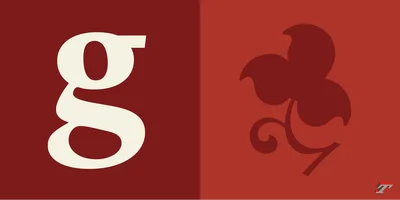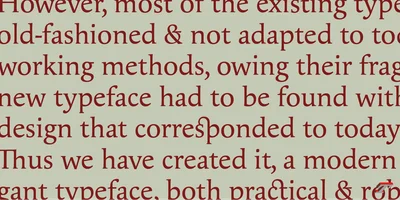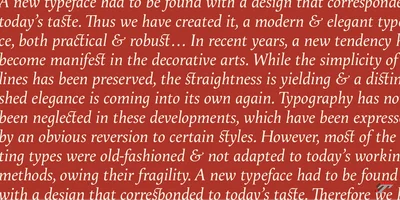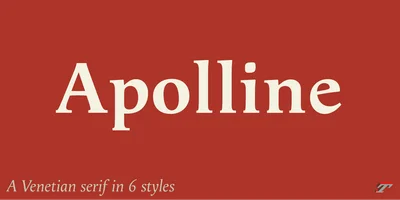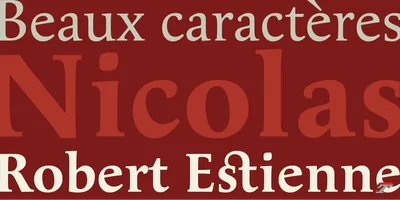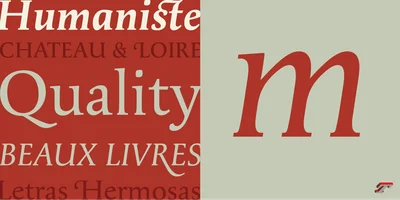
About Apolline
- Foundry
- Typofonderie
- Classification
- serif
- Style
- old-style
Apolline is a Venetian old-style serif typeface designed by Jean François Porchez for Typofonderie. First drawn in 1993, it was among the foundry's three inaugural typefaces when Typofonderie launched in 1994, alongside Angie Sans and Anisette.
History and Design
Porchez modeled Apolline's initial drawings after his own calligraphy, working at very small size — 2 cm capitals on tracing paper — to preserve the irregularity of handwriting. The design explores the transition from Renaissance handwriting to early printing types, drawing on the tradition of Nicolas Jenson and his contemporaries. Rather than pursuing geometric precision, Apolline follows the natural rhythms of the pen: horizontal strokes are emphasized with asymmetrical serifs that reinforce writing direction, and the italic — set at 8 degrees, influenced by Van Krimpen and Gill — features full serifs and unusually narrow, fluid forms.
The family spans five weights from Regular through Extra Bold, each with matching italics, plus an ornaments set. A Book weight was specifically added for optimal spacing at small text sizes. The PRO OpenType version, implemented in 2011, expanded glyph coverage to 880 characters per font across 43 languages. Apolline won a Morisawa Award in 1993.
- 10 styles plus ornaments: Regular, Book, Demi, Bold, Extra Bold — each with italics
- Calligraphic construction: Drawn from the designer's own handwriting at small scale
- Low contrast: Venetian proportions optimized for extended text reading
- Asymmetrical serifs: Reinforce horizontal writing rhythm
- Distinctive italic: 8-degree angle with full serifs and narrow, fluid letterforms
Use Cases
Apolline works effectively for:
- Editorial and book typography: Low-contrast Venetian proportions designed for extended reading comfort
- Brand identity: Calligraphic warmth with professional refinement for cultural and luxury brands
- Corporate communications: Trustworthy, readable character for reports, presentations, and formal documents
- Packaging and visual identity: Display sizes reveal the calligraphic details and asymmetrical serif construction
- Multilingual publishing: PRO version supports 43 languages across Latin Extended character sets
Who designed Apolline?
Jean François Porchez designed Apolline in 1993 as one of the founding typefaces of Typofonderie, the independent French type foundry he established in 1994. Porchez also served as President of ATypI from 2004 to 2007.
How many languages does Apolline support?
The PRO OpenType version supports 43 languages including French, German, Polish, Czech, Hungarian, Turkish, and other Latin Extended character sets.